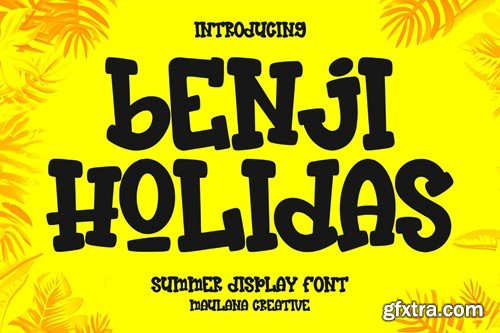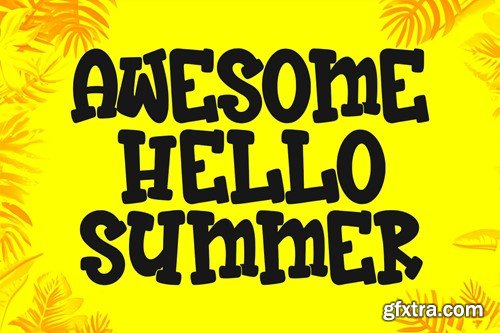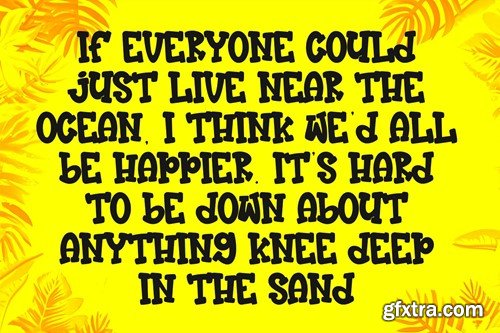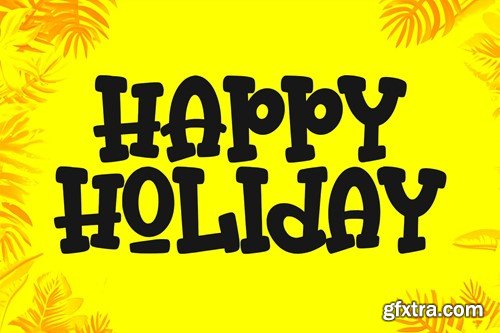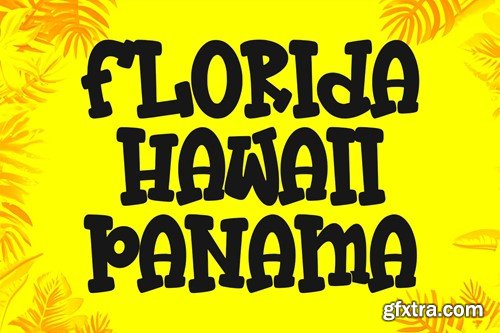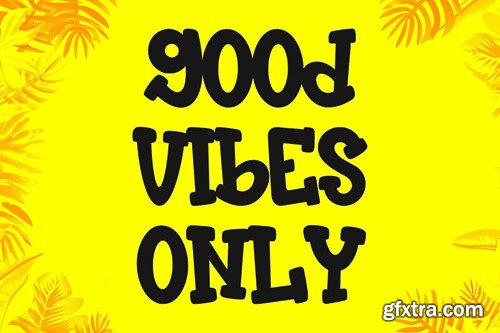
Benji Holidas Summer Display Font
Benji Holidas summer display font. Heavy stroke, fun character with a bit of ligatures. To give you an extra creative work. Benji Holidas summer display font support multilingual more than 100+ language. This font is good for logo design, Social media, Movie Titles, Books Titles, a short text even a long text letter and good for your secondary text font with script or serif. Make a stunning work with Benji Holidas summer display font. What you get: Cheers, Maulana Creative